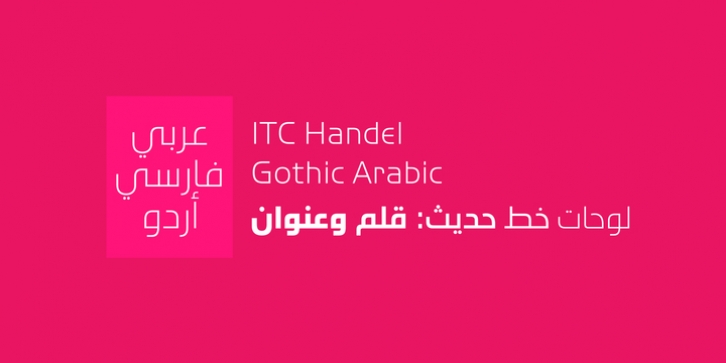
ITC Handel Gothic Arabic was designed by Nadine Chahine and published by ITC. ITC Handel Gothic Arabic contains 5 styles and family package options.
ITC Handel Gothic Arabic is a modern Kufi design by Nadine Chahine, created especially for headlines and display purposes. It comes in 5 different weights ranging from Light to Heavy which extends its usage capabilities considerably. The design is mono-linear and with the typical geometric construction associated with the Kufi style. Its usage can vary from headlines to logos to packaging. Given its large counters, it can function quite well in very small sizes too. Its pattern is quite homogenous, so it is not recommended to use this for whole paragraphs. The character set supports Arabic, Persian, and Urdu and also includes Basic Latin.